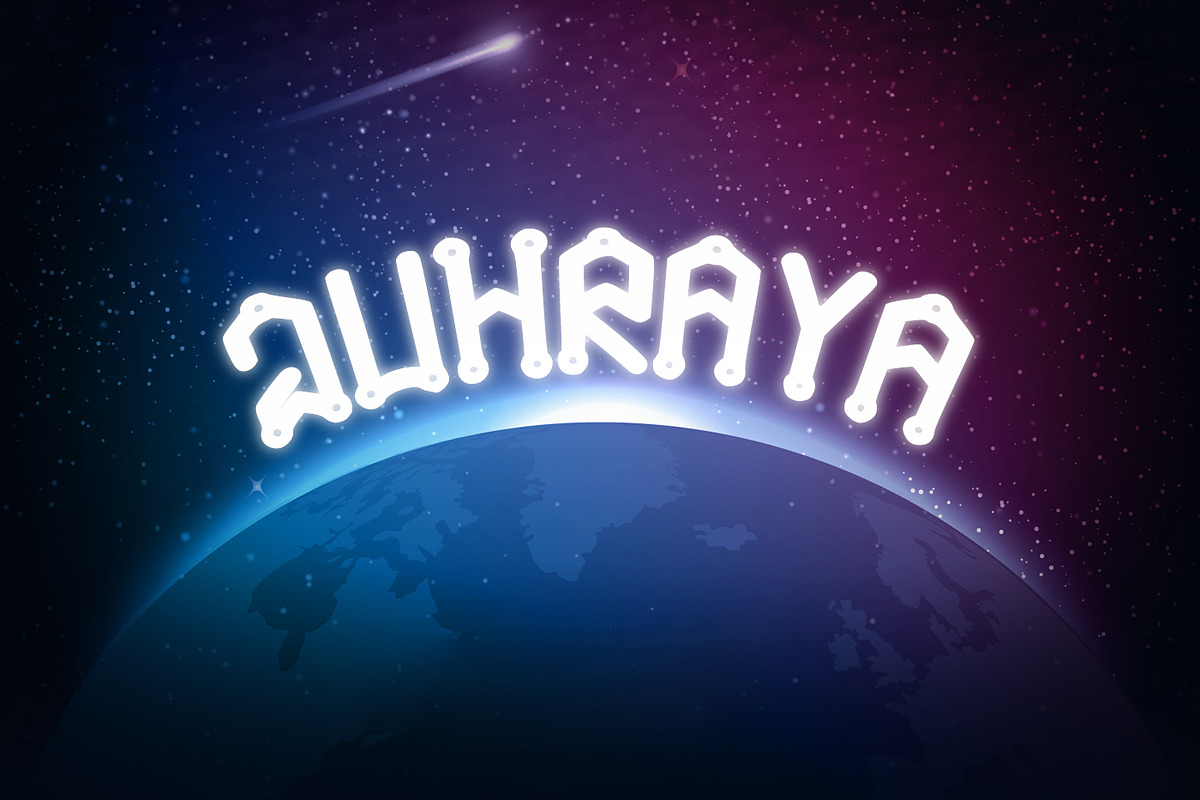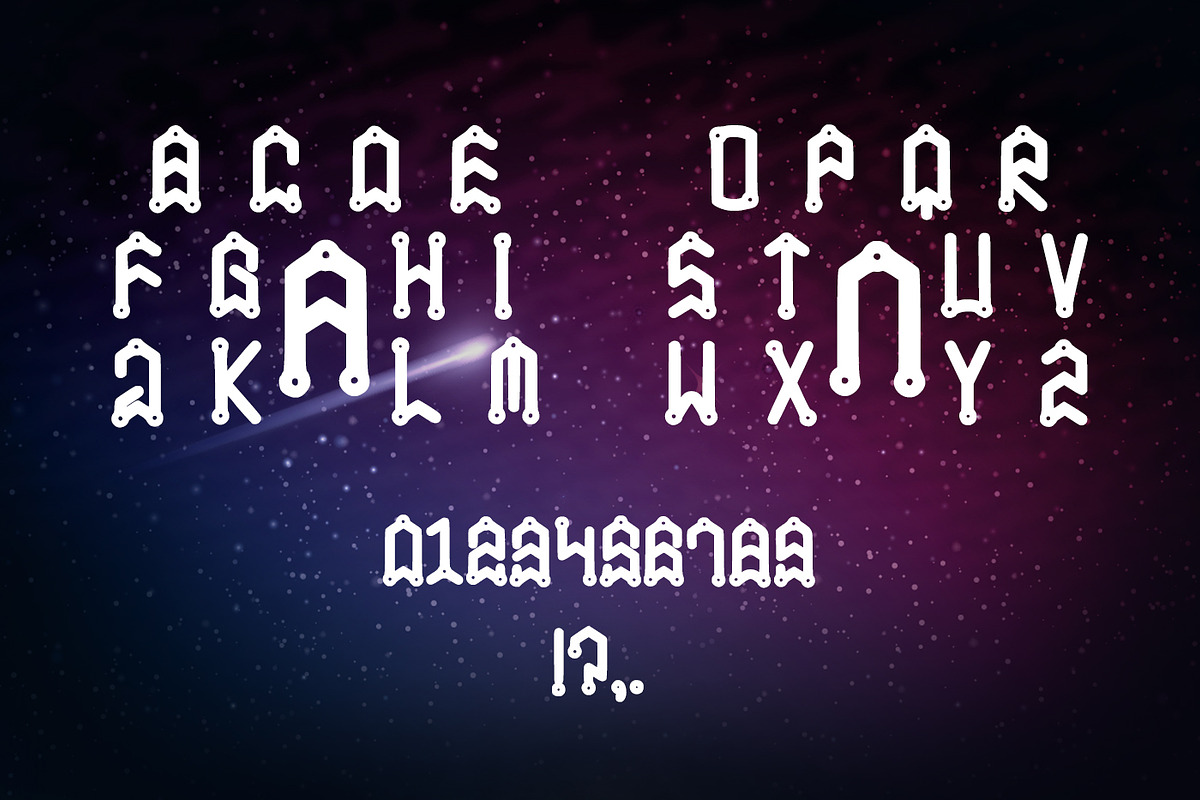
Juhraya Font
Juhraya Font by DmDesignsStoreArt is a font selected for branding, posters, packaging, typography.
Why Juhraya Font is worth a look
Juhraya Font by DmDesignsStoreArt fits naturally into Branding, posters, packaging, typography.